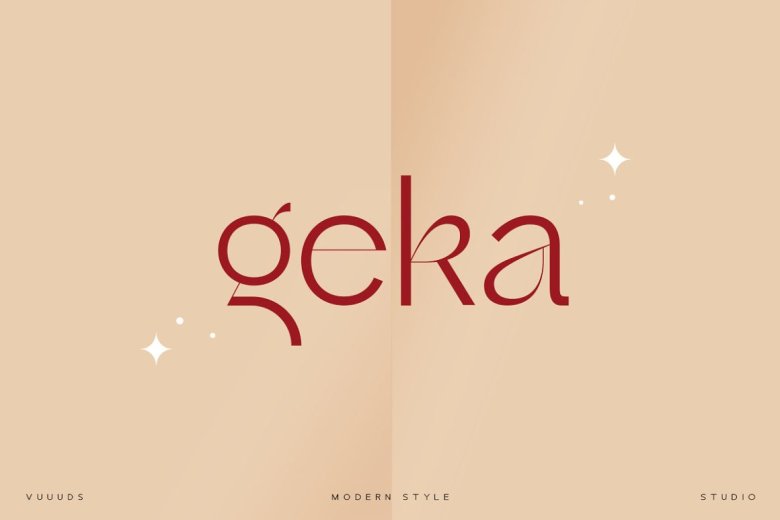
Geka Font
Geka is a contemporary sans serif font in modern fashion for digital and print typesetting. Every single letter is carefully crafted to make your text look distinct from everyone else’s. This font includes beautiful alternate glyphs as well. You can access these throughout the entire font via Font Book (on Mac) or Windows Character Map (on Windows),
Geka Sans Serif Font